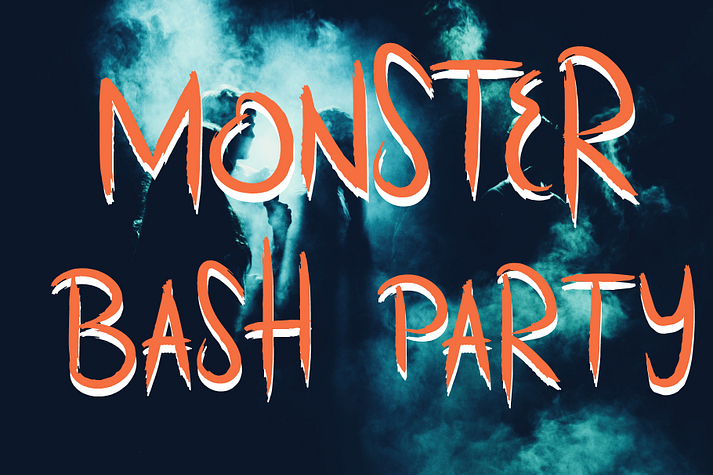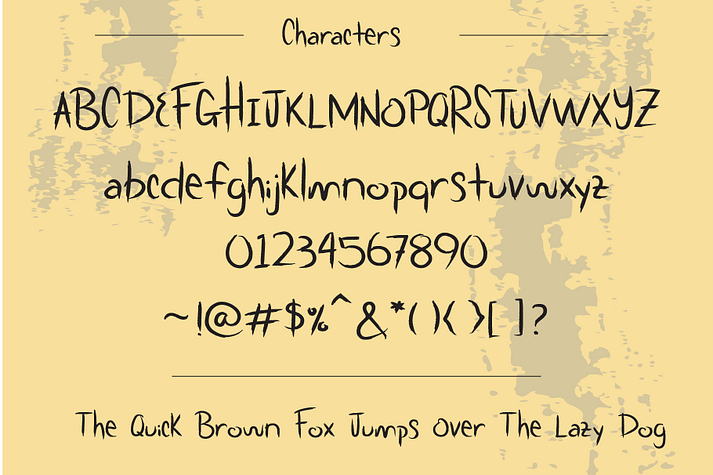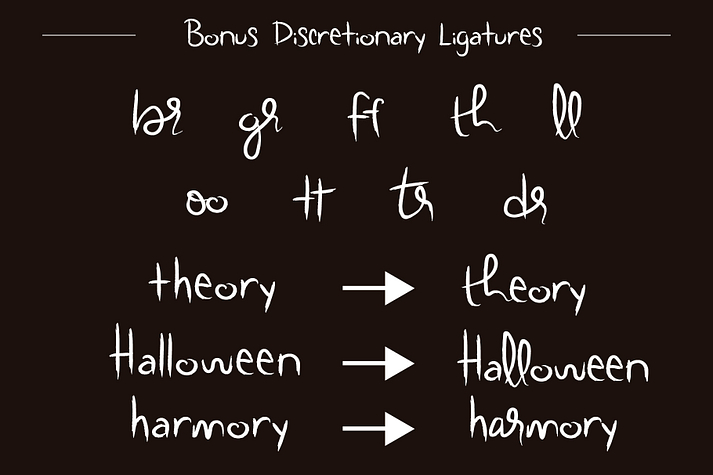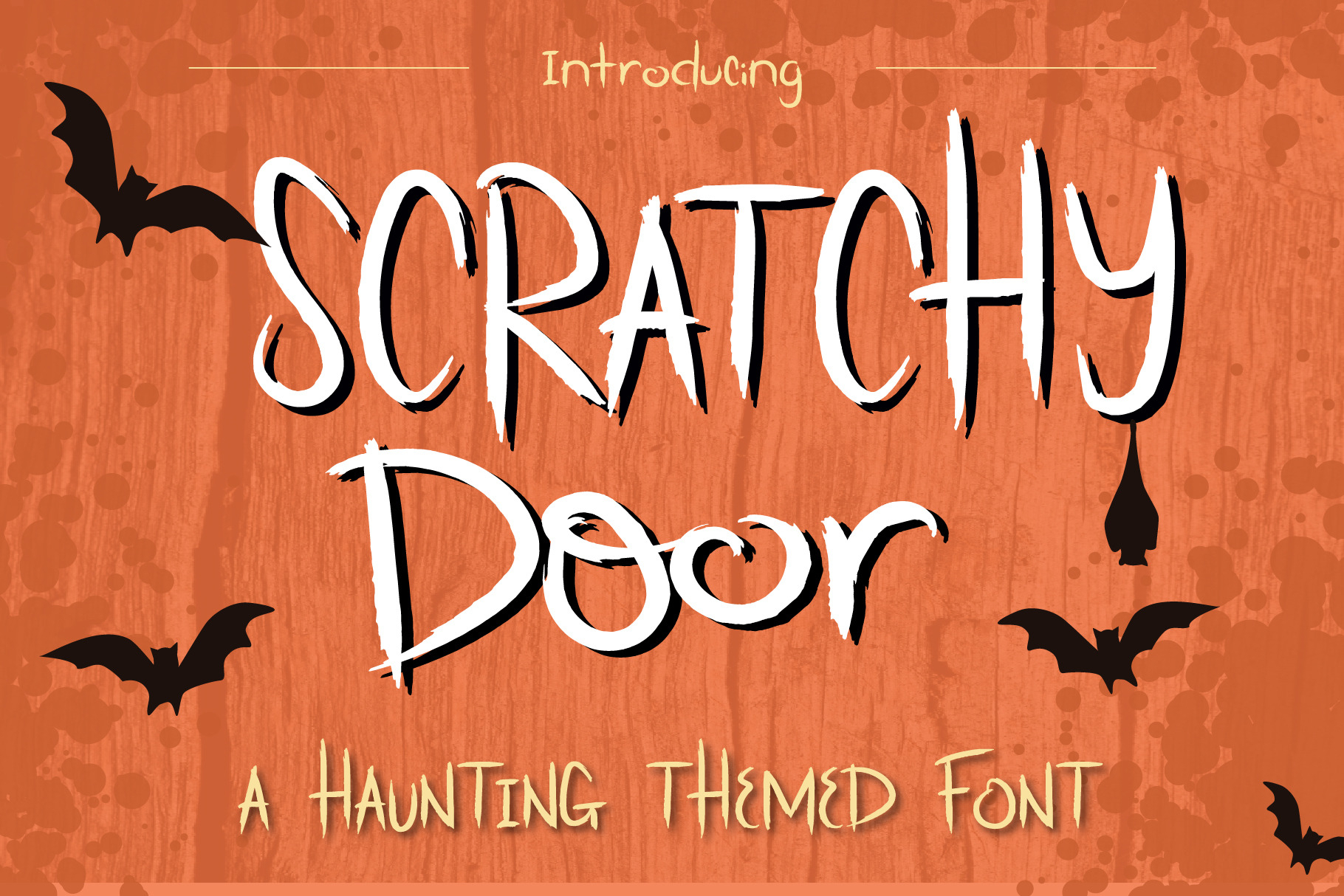
Scratchy Door
Scratchy Door is a hand drawn font family published by TuNeuwin.
Introducing, Scratchy Door. A decorative and crafty Halloween inspired font. Perfect forchildren’s book, greeting card, craft projects, etc. This PUA font is perfect for professional designer, social media, or crafters.